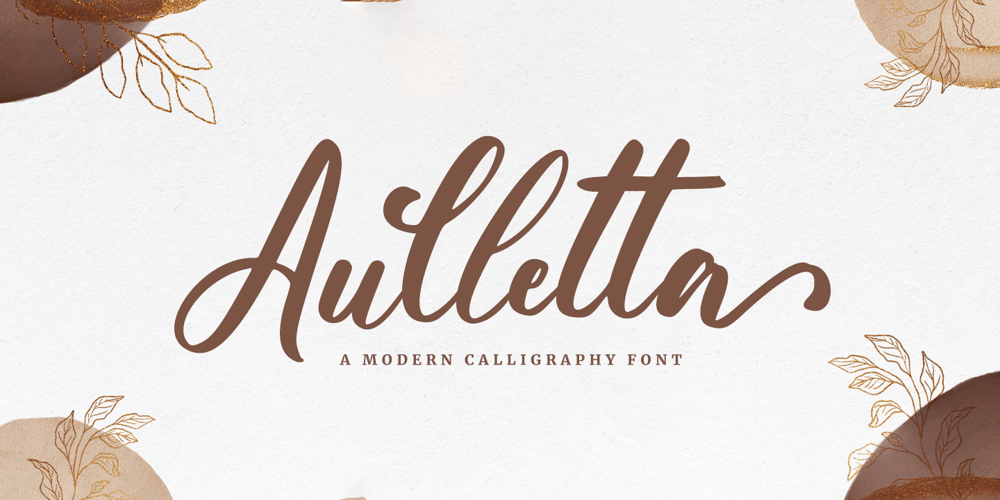
Aulletta
Aulletta font
Aulletta Font Family was designed by Novia Himatunnisa and published by Nissa Nana. Aulletta contains 1 styles and family package options. Aulletta is a beautiful and flowing script font. Its modern and classy look makes it the perfect font for creating outstanding DIY projects! This font is PUA encoded which means you can access all of the cute glyphs and swashes with ease! It also features a wealth of special features including alternate glyphs and ligatures.